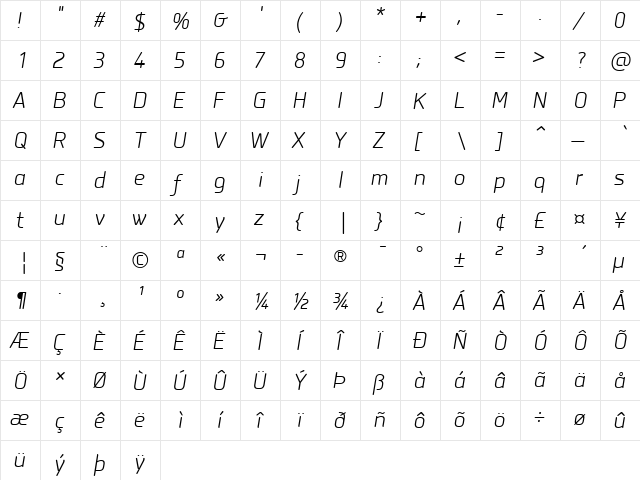
PF Isotext Pro Light Italic
Design Context for PF Isotext Pro Typeface
PF Isotext Pro is a composed and adaptable typeface that performs quietly and consistently across a wide range of design contexts. The slanted form adds forward momentum and visual energy. Its slender proportions lend an understated elegance to any composition.
Pro Tip: Try PF Isotext Pro for annotation and caption copy alongside an upright companion — the contrast in angle creates a dynamic but ordered typographic system.